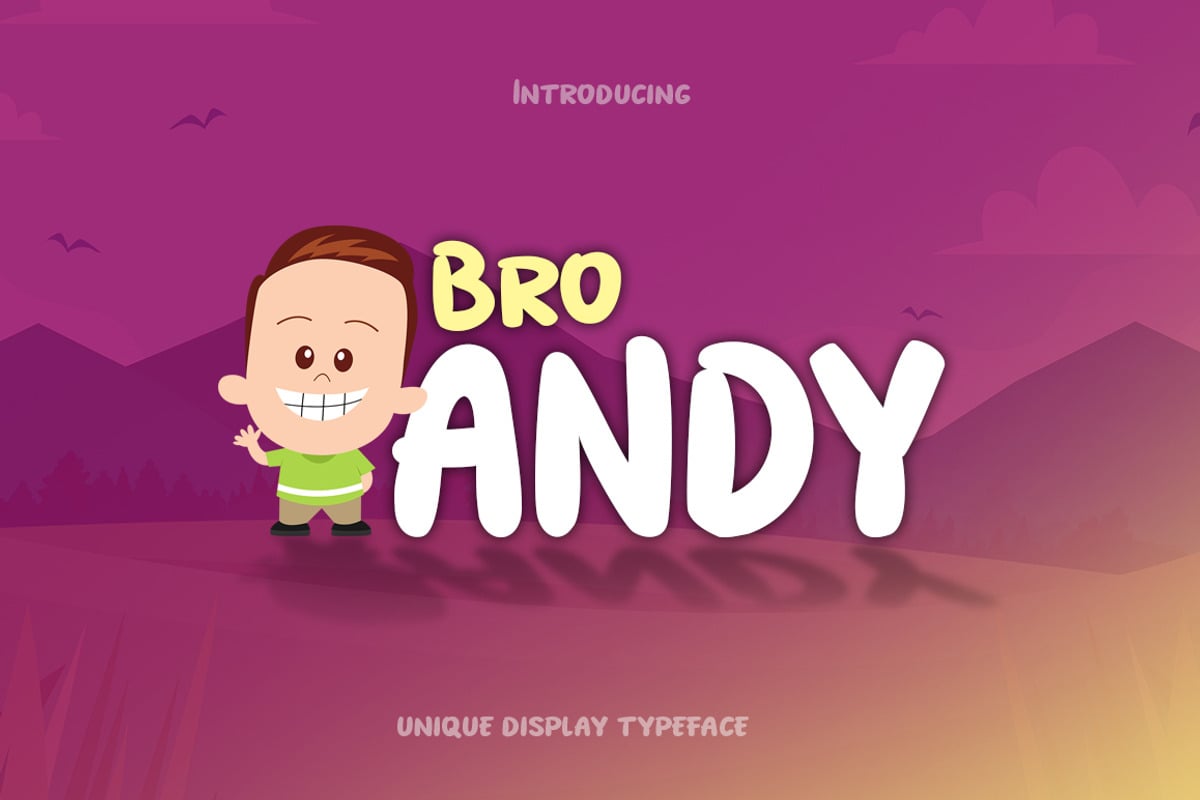
Bro Andy Font
Bring joy and playfulness to your designs with Bro Andy, a delightfully cheerful children's font. This whimsical typeface captures the spirit of childhood with its fun, cartoon-inspired character design. Perfect for projects that need a touch of happiness and youthful energy, Bro Andy adds personality and charm to any creative work. Ideal applications include: Logo design and branding Greeting cards Posters Any design project requiring a playful touch Files included: Bro Andy.ttf Bro Andy.otf Bo...